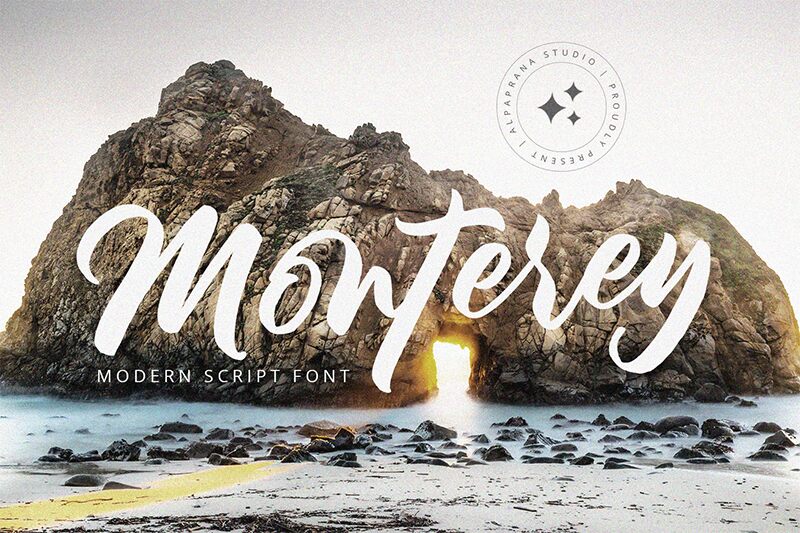
Monterey
Monterey font is a handwritten aesthetic font by Alpaprana Studio with a fluid motion and expressive character. This script typeface has an elegant appearance that showcases both modern appeal and authenticity in design projects. The white space balance between each stroke helps readers focus more on the content while continuously getting attracted to reading more.